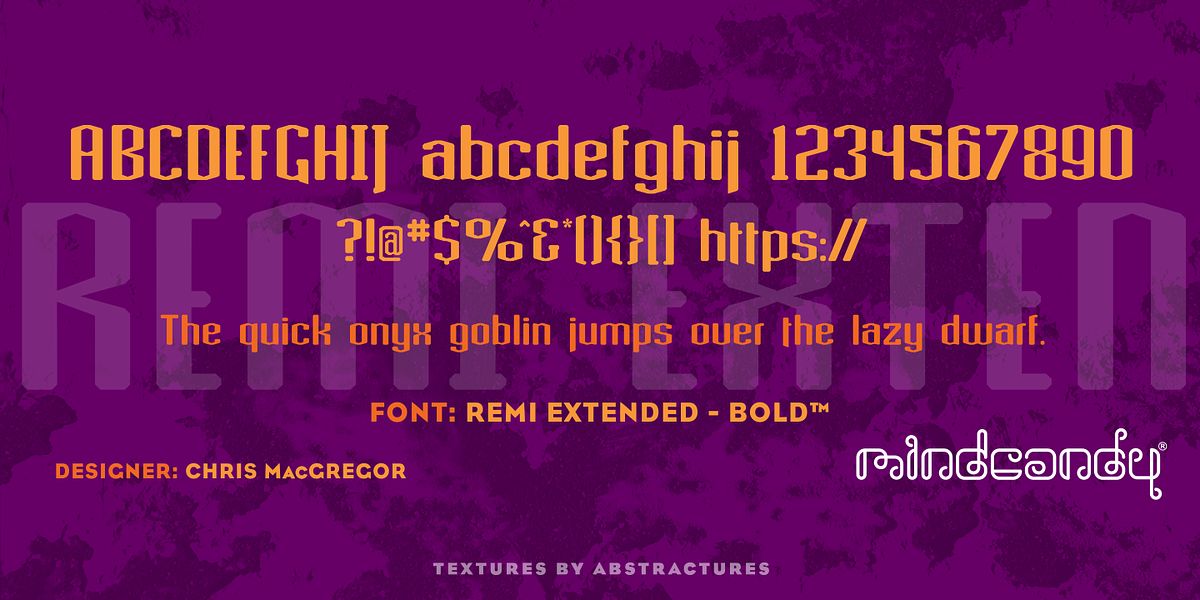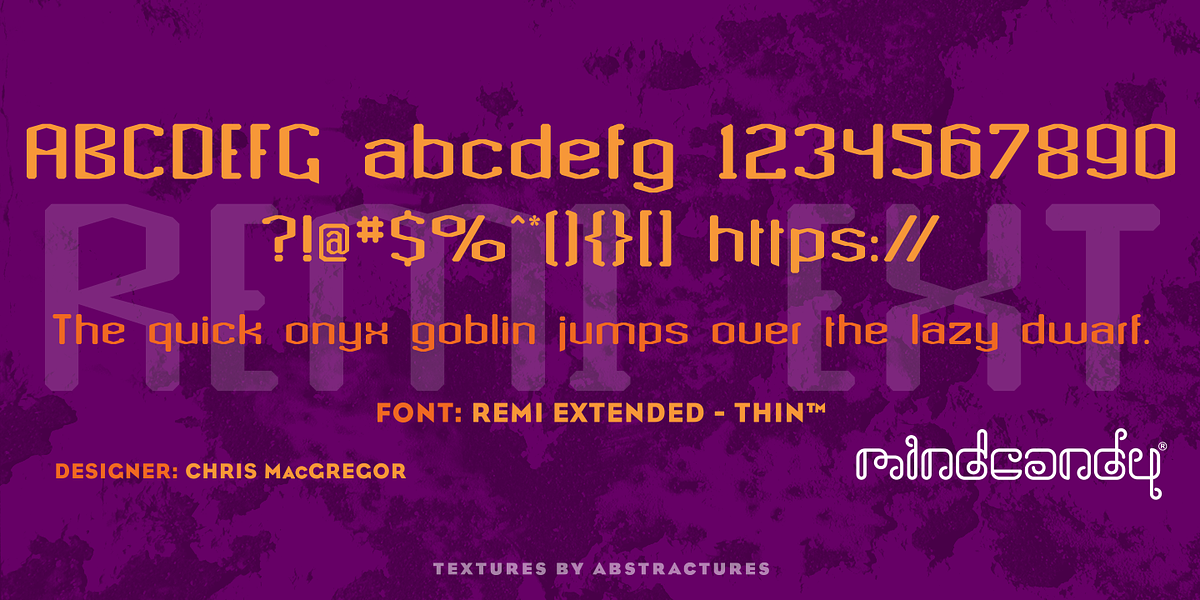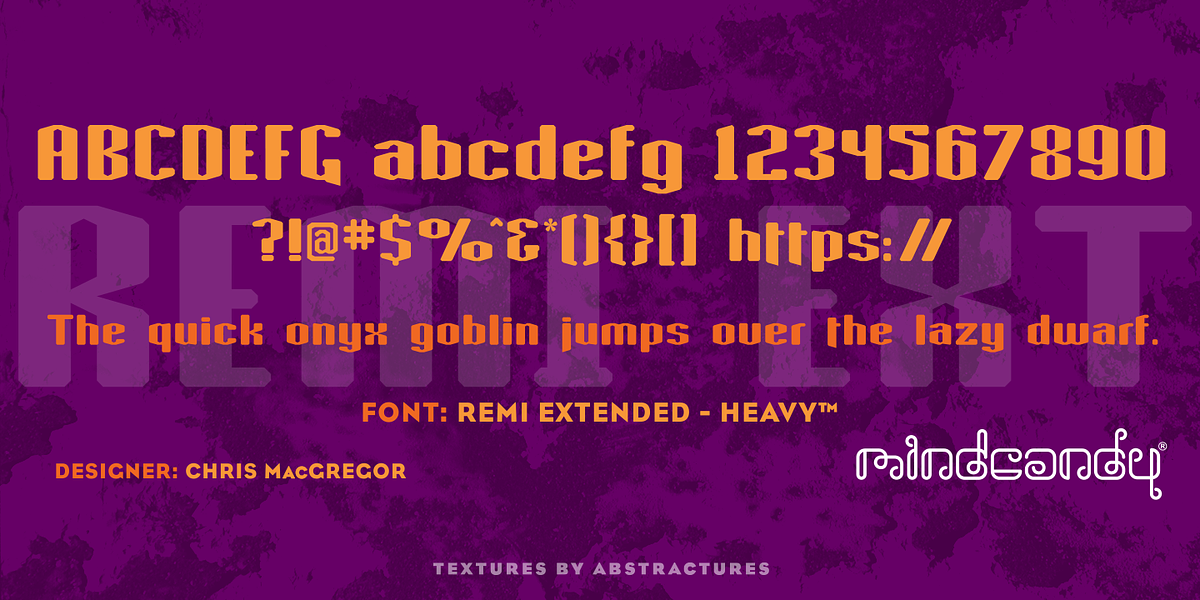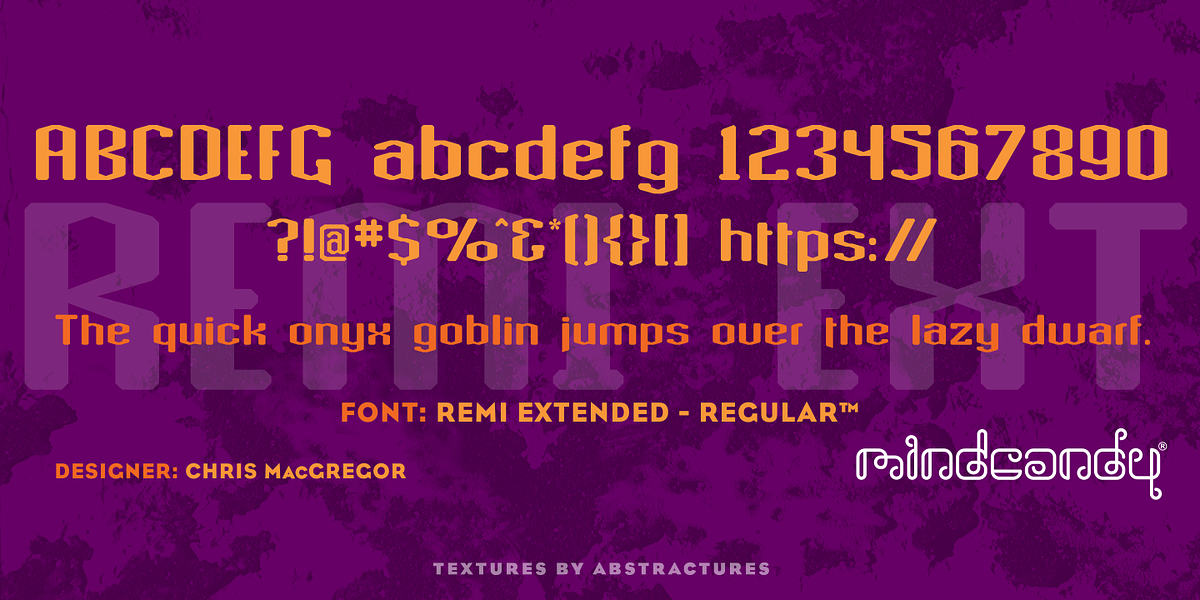
Remi Extended™
This retro geometric display font features a unique blend of angular and soft elements. Its bold personality makes it suitable for headlines and branding applications.